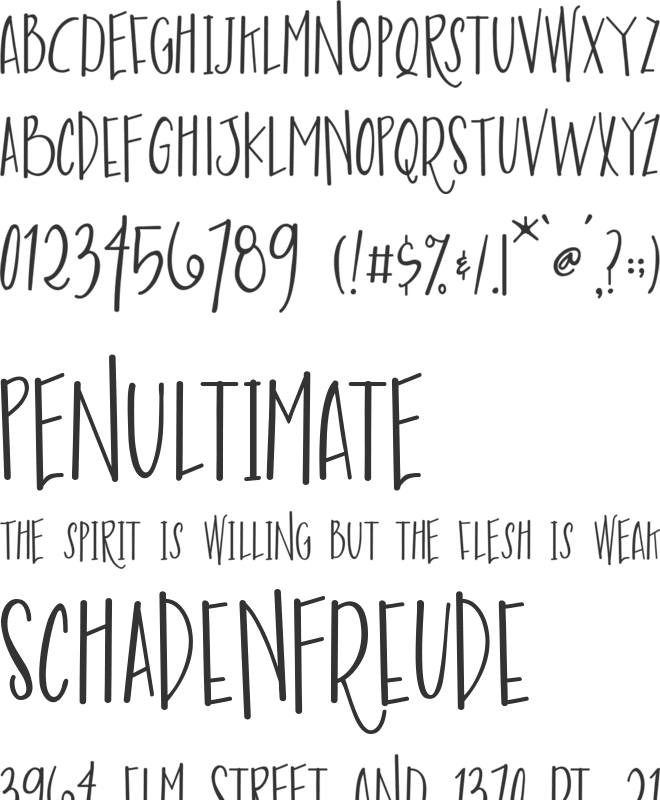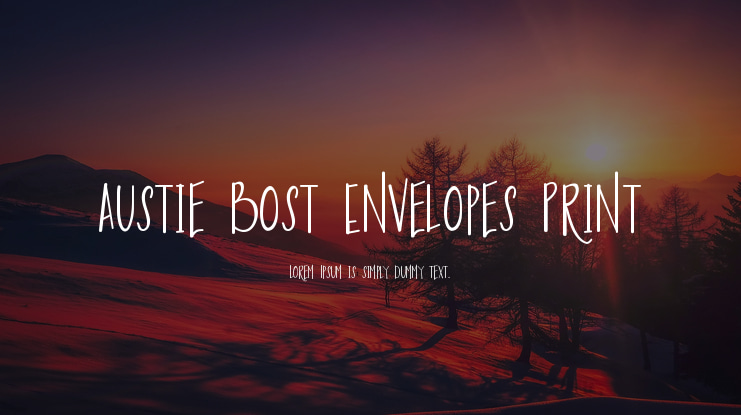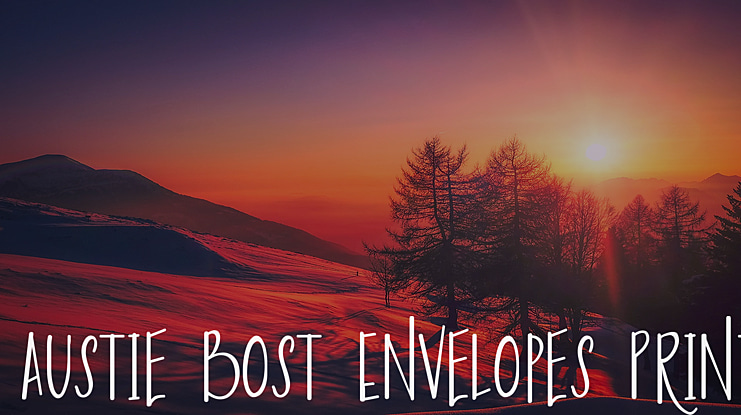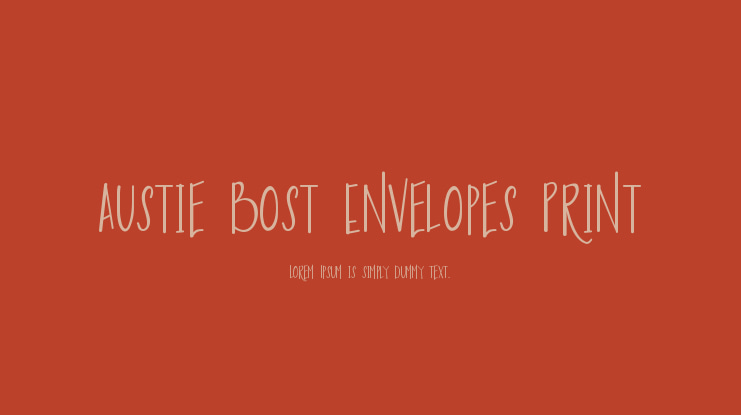
Austie Bost Envelopes Print is an all-caps font that takes on the appearance of super cute handdrawn envelope art! It's perfect for any project, whether on an envelope or otherwise. :)